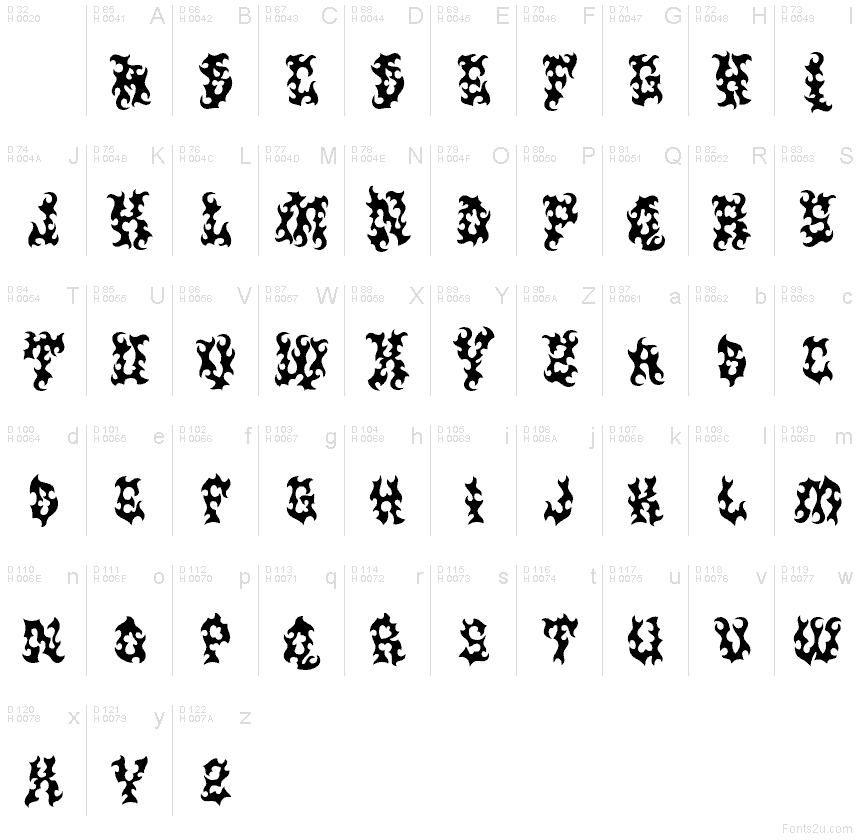
CS Morbid Regular Demo
CS Morbid font by Craft Supply Co. is a scary and decorative display font with flames as its central visual element. Gothic influences, bold appearance, baroque elements, and intricate details all come together into a modern piece influenced by traditions. This is a condensed font that focuses on details inside text lines, creating an ornamental look.
This wonderful free handcrafted typeface will easily satisfy most of your scary design needs. Take advantage of it in horror movie posters, Halloween designs, mystery novels covers and titles, or similar uses in comic magazines or video games. Text logos are another are where CS Morbid’s potential can be fully explored.